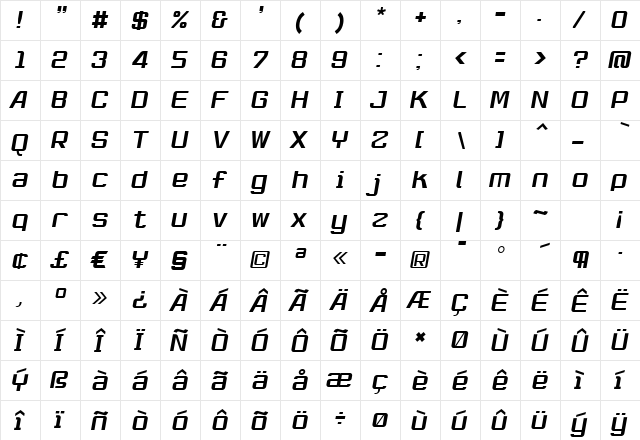
RobustikRegular Oblique Regular
Design Context for RobustikRegular Oblique Typeface
RobustikRegular Oblique takes a measured approach to typography — its balanced proportions and neutral character make it a reliable workhorse for both digital and print work. The slanted form adds forward momentum and visual energy.
Pro Tip: Try RobustikRegular Oblique for annotation and caption copy alongside an upright companion — the contrast in angle creates a dynamic but ordered typographic system.